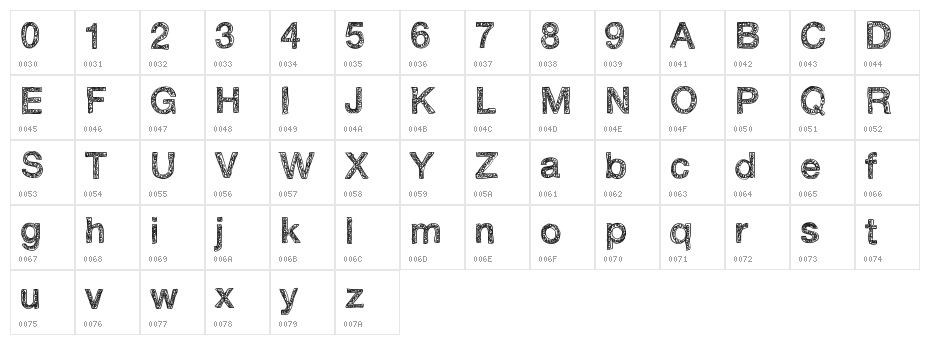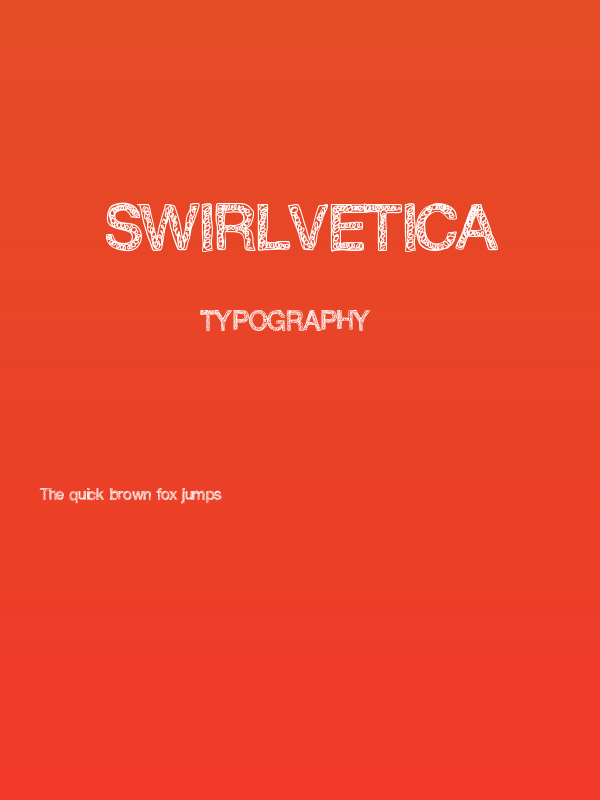
Swirlvetica Font
Swirlvetica Description
This font features a playful and decorative style with intricate swirl patterns filling each character. The uppercase and lowercase letters maintain a consistent design, creating a cohesive look. The numbers and special characters also follow this whimsical pattern, making the font ideal for creative and artistic projects. The unique design of the characters gives it a hand-drawn feel, adding a touch of personality and charm. This font is perfect for projects that require a standout, artistic touch, such as invitations, posters, or branding materials.
Proposed ProjectsIdeal for invitations, posters, branding materials, and artistic projects.